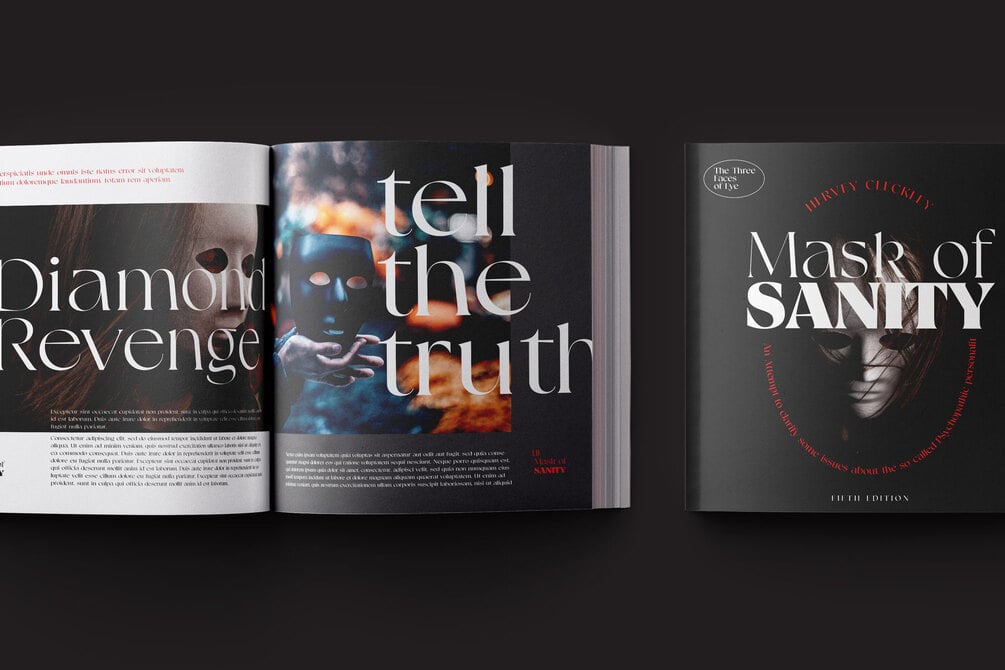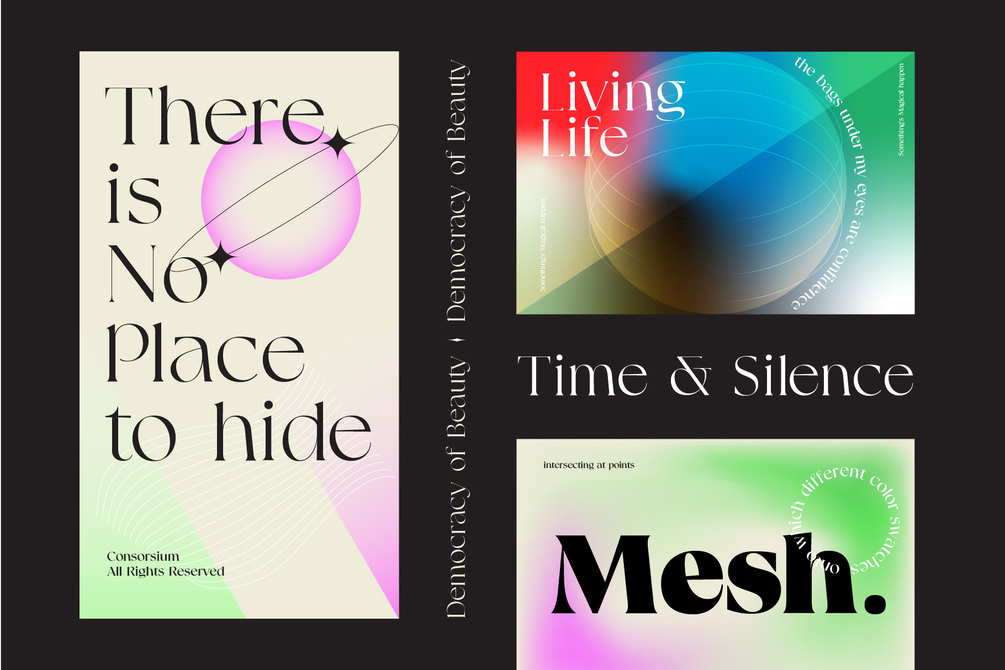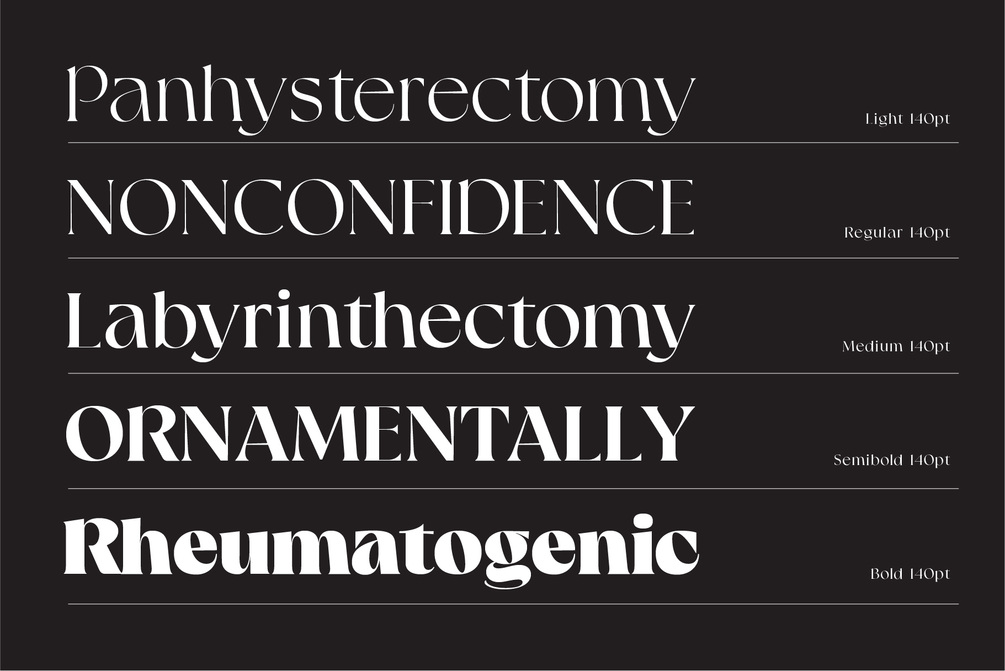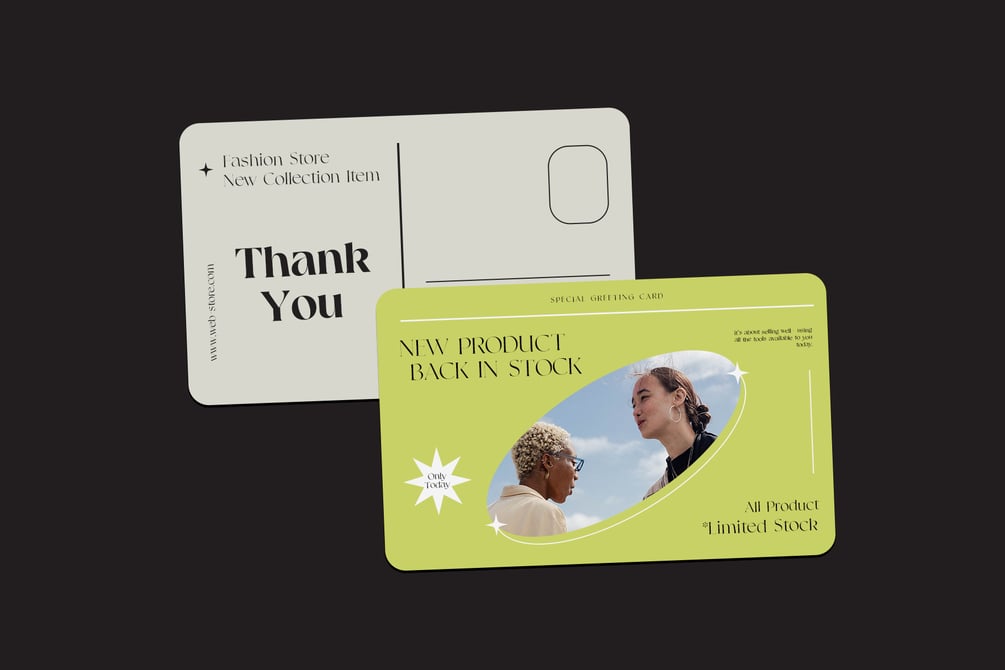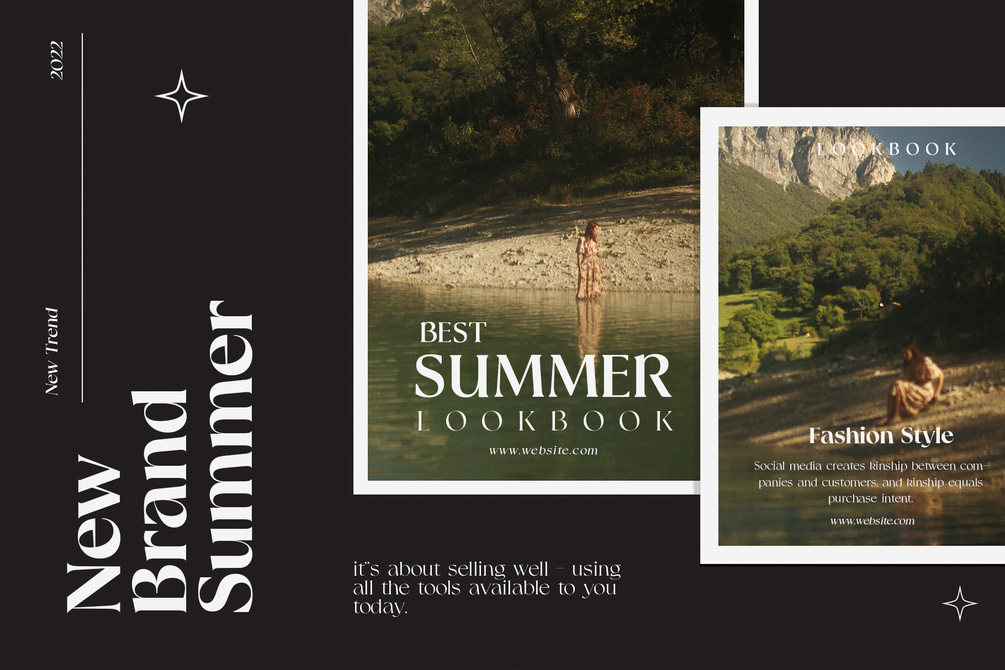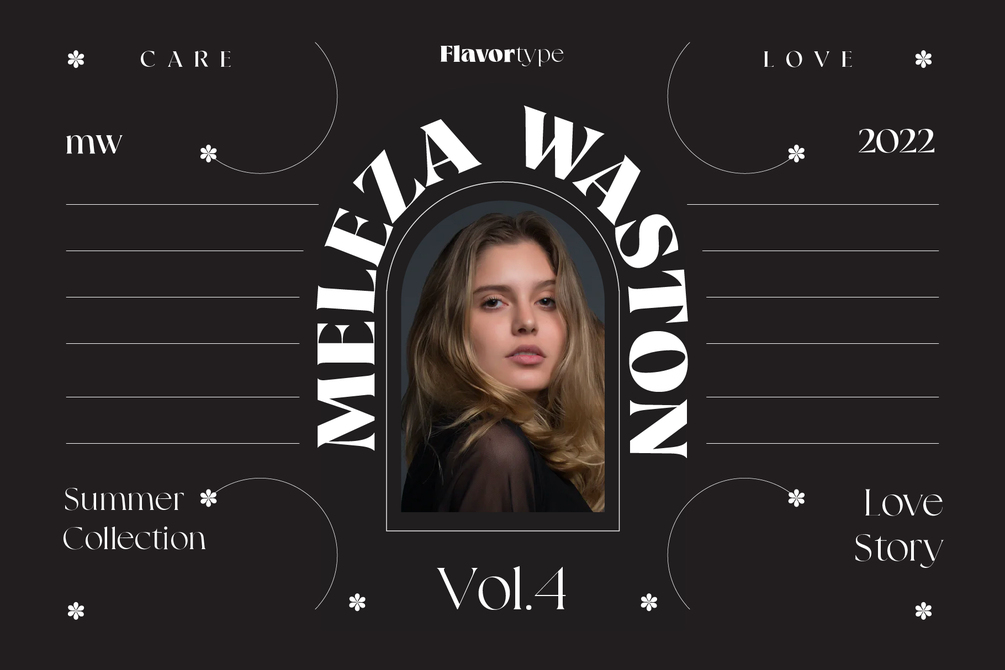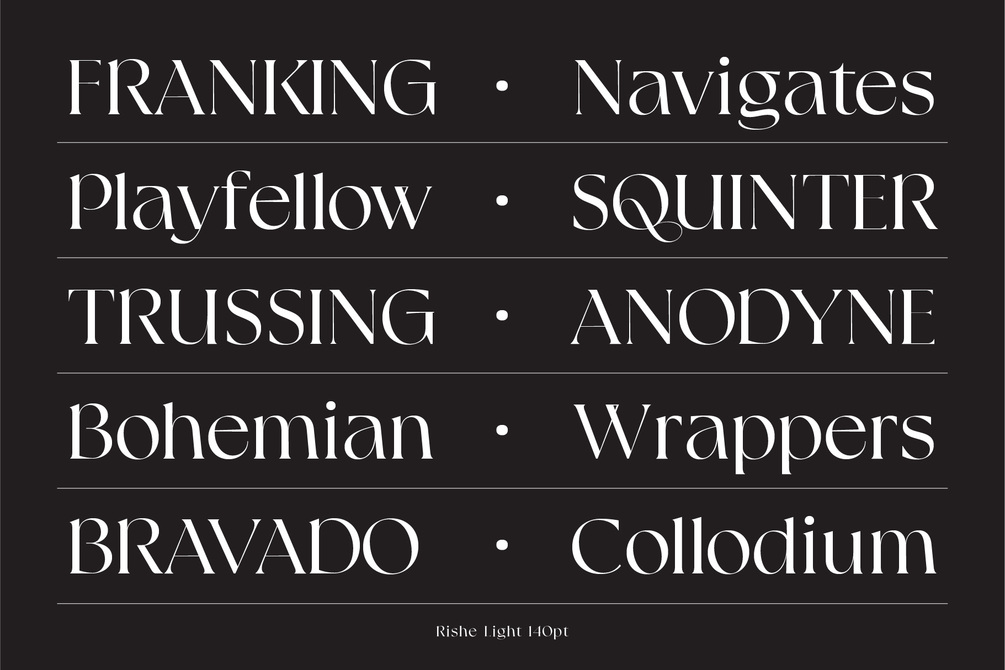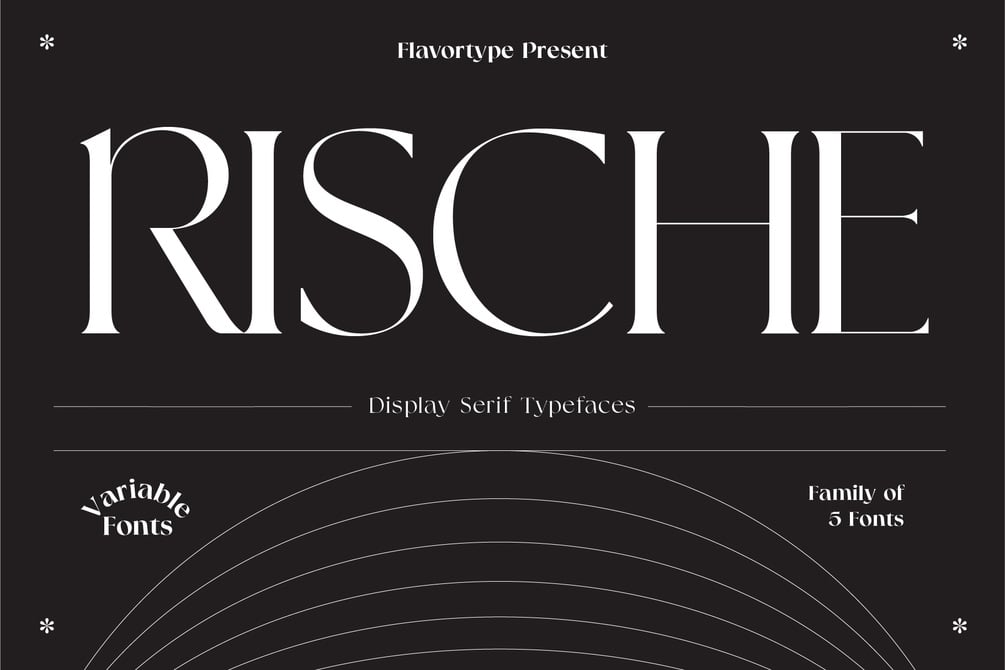
Rische
Rische is a Family of Variable Display Serif fonts. A Hype of summer themed bring us to expressing a thirsty of creating a product that can help you to choosing a fonts to your creations. Like as we are on the preview above, how the fonts can "stands" within your design. Since Rische are created on a 5 weight from Light, Regular, Medium, Semibold, Bold. You won’t be worried which one to fit to your creative design. Also, You can Mix it up all of it without worrying design collision. Rische also available on with Variable Fonts, so it will generate more weight than the standard fonts, form 100 to 700.